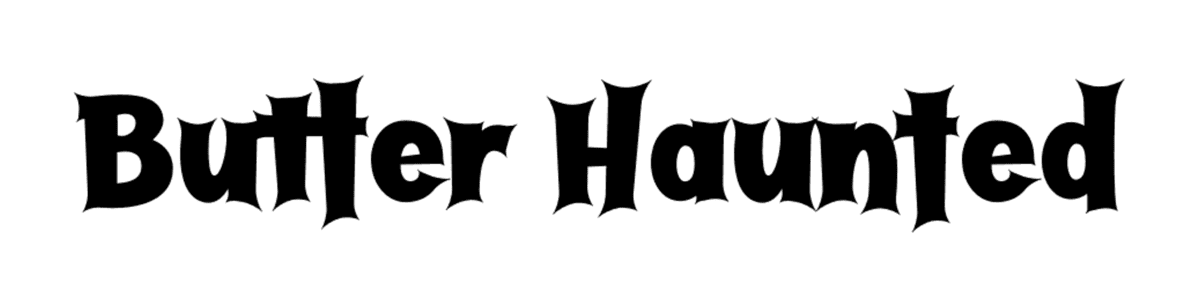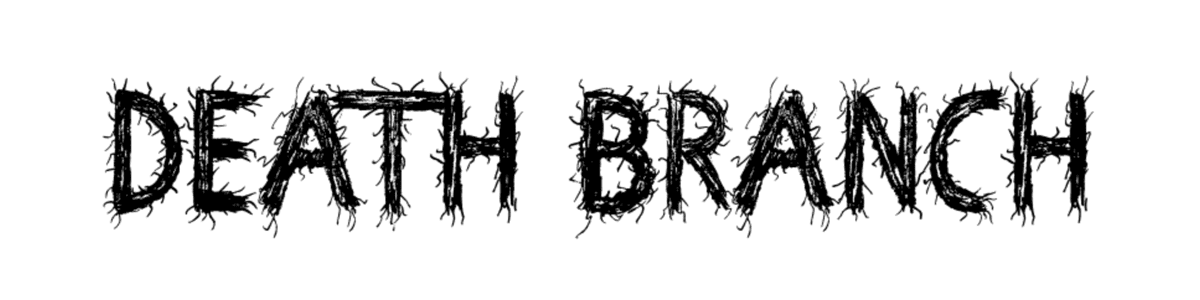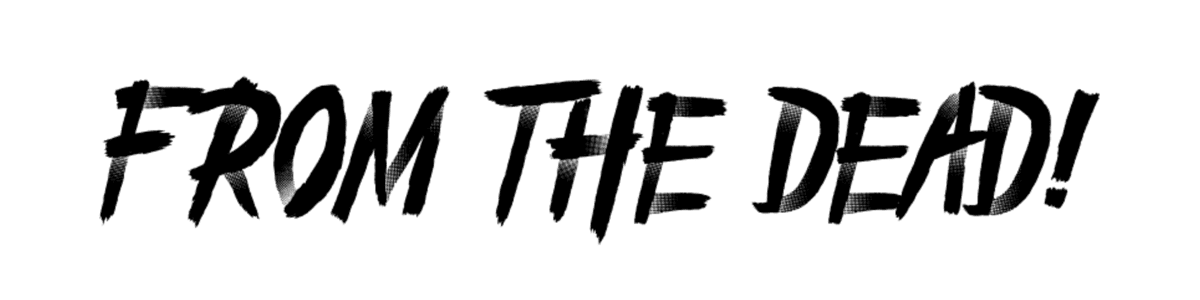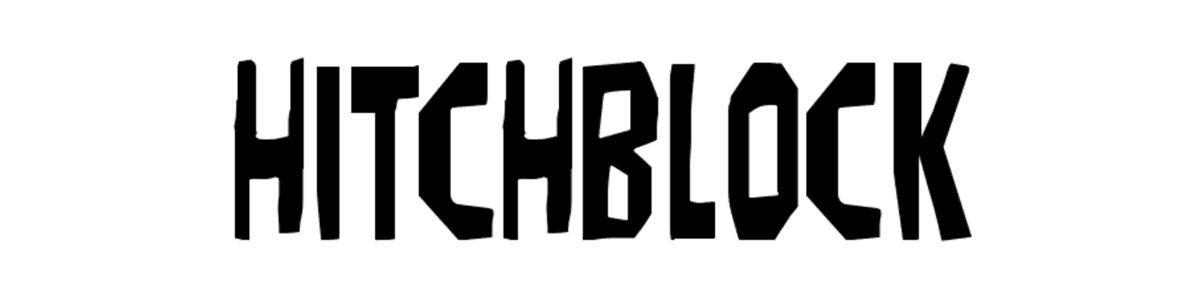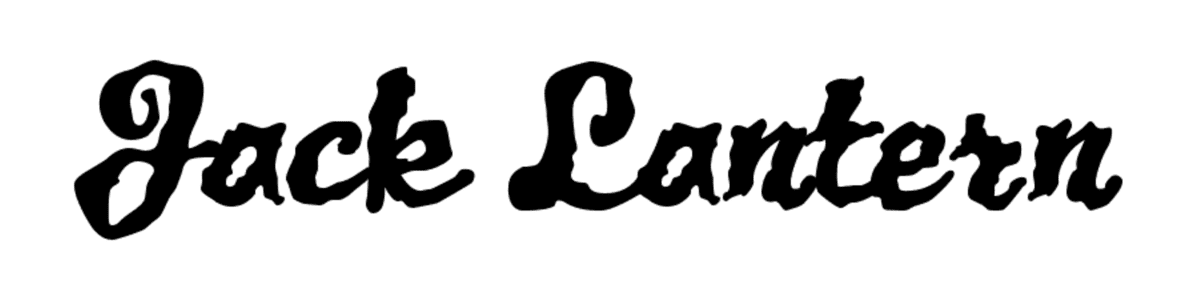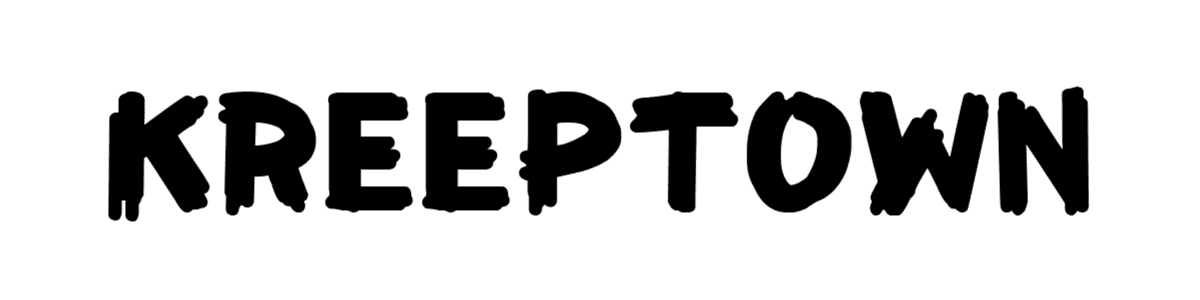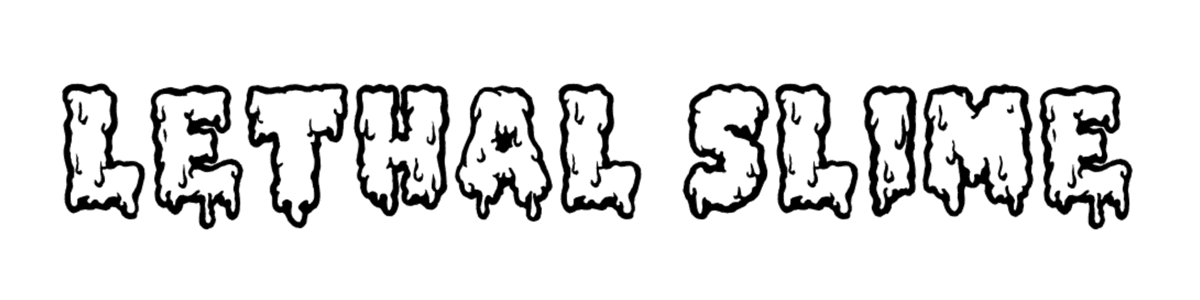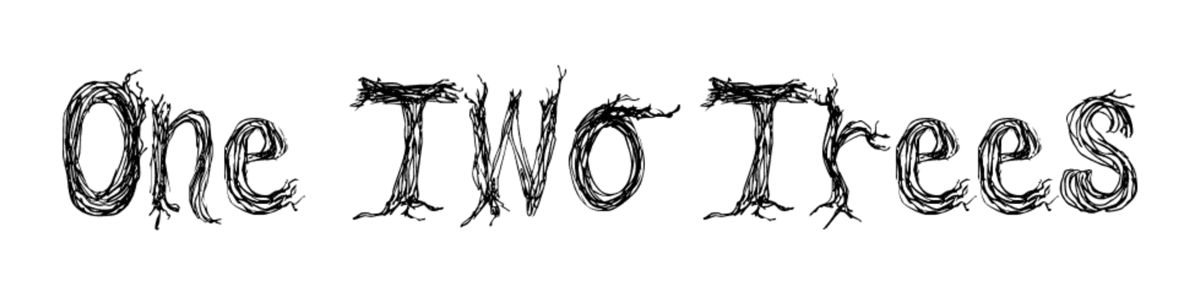
Halloween Fonts
Spooky Fonts for Halloween
Halloween FontsWhere there is no imagination, there is no horror. — Arthur Conan Doyle
At this time of the year, we see an increased use in specialized fonts – starting with Halloween fonts. These types of fonts are popular because people like to link their event/promotion/idea with a specific holiday. Think about the emails that you have been receiving this month (or even the mailers that come to your physical mailbox) – many of them have probably been promoting Halloween sales and events. And they have possibly used a Halloween-themed font. You might have even received something using one of the fonts highlighted below!
You will see these fonts used mainly in email copy, images for emails and social media campaigns, or on printed materials, but you won’t see them used as a font on the main pages of a website – unless it is for a holiday-themed website such as Creepy Company.
Here’s our list of 10 Halloween fonts:
Butter Haunted
Death Branch
From the Dead
Haunted
Hitchblock
Jack Lantern
Kreeptown
Lethal Slime
Mister Twisted
One Two Trees
We don’t recommend using these fonts heavily on your website. Where these fonts can really make an impact is on your website slider highlighting your Halloween sale or featuring your Halloween products. Specialized fonts used in these images will help that image jump out of the screen – so to speak.